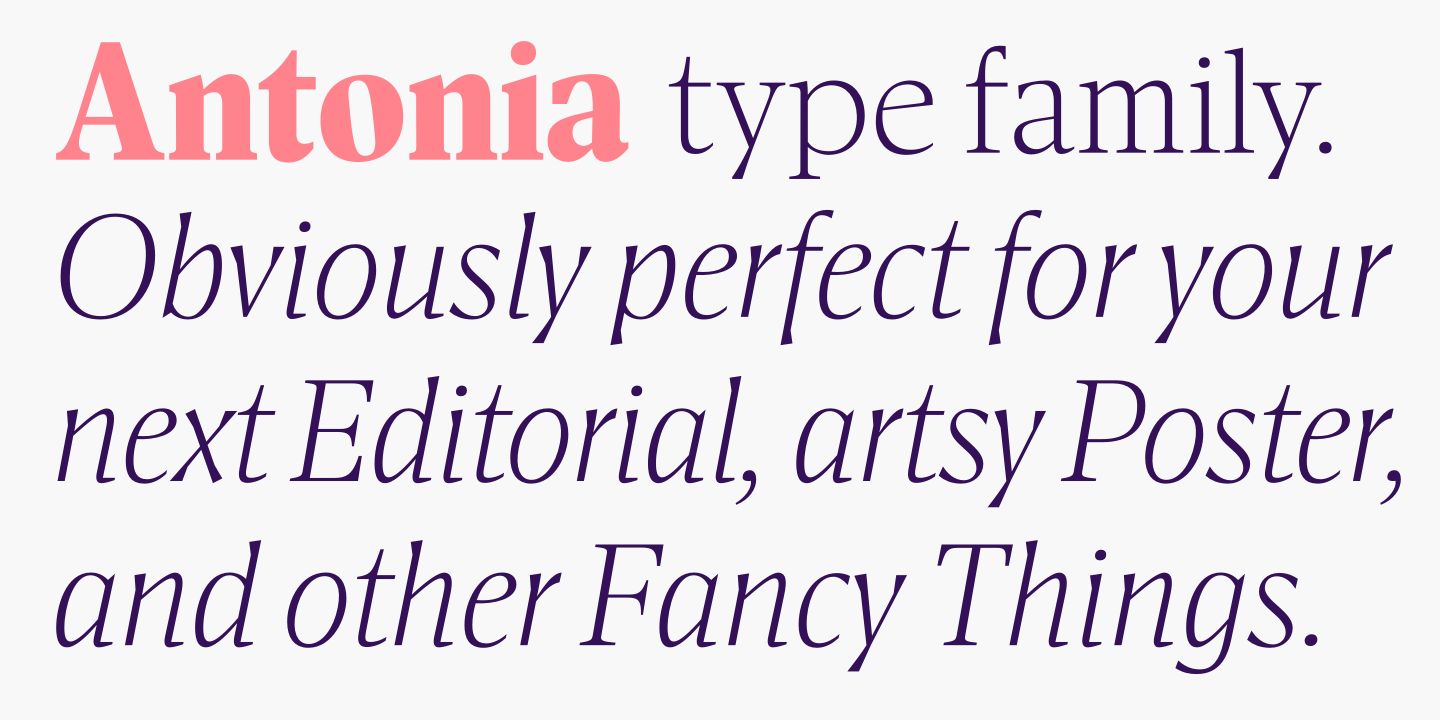
Antonia Font is perfect for feminine brand identities, boutique fashion logos, beauty salon signage, elegant wedding stationery, lifestyle blog headers, cosmetic product packaging, jewelry store branding, and sophisticated women's publications.
Antonia Font is exciting because it captures the essence of feminine elegance and refined sophistication through its graceful letterforms and delicate character styling that perfectly balances strength with softness. Its distinctive design elements and timeless appeal make it the ideal choice for brands targeting sophisticated women who appreciate both contemporary style and classic beauty.
The Antonia Font family includes multiple elegant variations: Antonia Light, Antonia Regular, Antonia Medium, Antonia Bold, Antonia Italic, and Antonia Script, along with decorative flourishes and ornamental elements, providing designers with comprehensive tools for creating sophisticated feminine brand experiences.
When seeking elegant feminine typography solutions, Antonia Font Free Download emerges as the perfect choice for designers working on women-focused brands and luxury lifestyle projects. This beautiful typeface embodies the qualities of modern femininity while offering the versatility needed for comprehensive brand applications. The font's graceful proportions and sophisticated styling create immediate appeal among female audiences who value quality design and authentic elegance.
Professional designers consistently choose Antonia Font for projects requiring genuine feminine sophistication and timeless appeal. Its expertly crafted letterforms feature elegant influences that work exceptionally well in both intimate product packaging and large-scale lifestyle advertising campaigns. The font's ability to convey grace and strength simultaneously while maintaining perfect readability makes it invaluable for comprehensive brand identity systems in the beauty, fashion, and women's lifestyle sectors.
Whether you're developing beauty brand identities, creating women's lifestyle publications, or designing elegant event materials, Antonia Font delivers the sophisticated femininity and refined elegance that resonates with discerning female consumers. Its timeless beauty and contemporary relevance ensure your designs appeal to women who appreciate thoughtful design and authentic sophistication in their purchasing decisions and lifestyle choices.